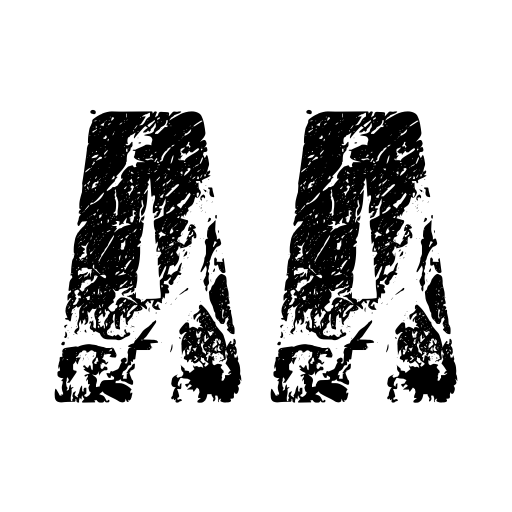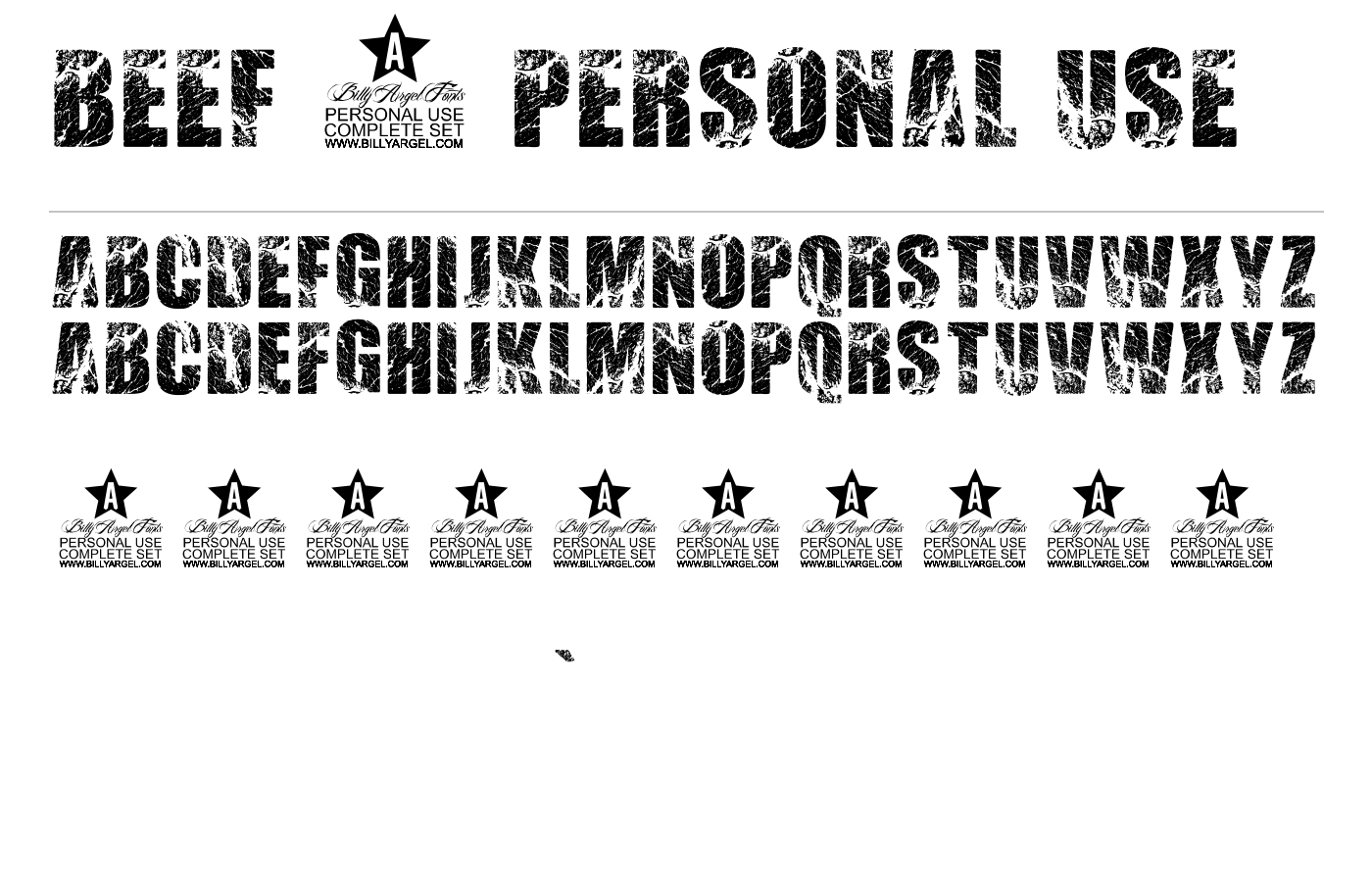
BEEF 3 PERSONAL USE is a bold, distressed sans serif font that exudes a rugged, industrial feel with its heavy weight and rough texture. Its all-uppercase design and worn-out look make it ideal for projects needing a strong, vintage or grunge aesthetic, such as posters, logos, and packaging that aim to convey toughness and raw energy. This font’s bold presence ensures attention-grabbing headlines and impactful brand statements.
BEEF 3 PERSONAL USE Font
About BEEF 3 PERSONAL USE Font